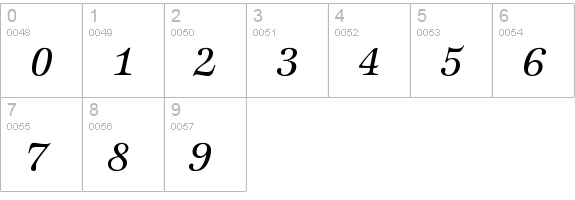
ZapfInternationalEF-MediumIta Font Details
The ZapfInternationalEF-MediumIta font exudes elegance and sophistication with its sleek design and unique italic style. This versatile typeface is perfect for adding a touch of class to any project, whether it be for print or digital media. The medium weight of the font strikes the perfect balance between readability and style, making it ideal for a wide range of applications. What sets ZapfInternationalEF-MediumIta apart is that it is available for free download at FontsMarket.com, allowing users to access this premium font without any cost. With its timeless appeal and effortless charm, ZapfInternationalEF-MediumIta is sure to elevate any design and make a lasting impression on viewers. Download this exquisite font today and enhance your projects with its unparalleled beauty and flair.